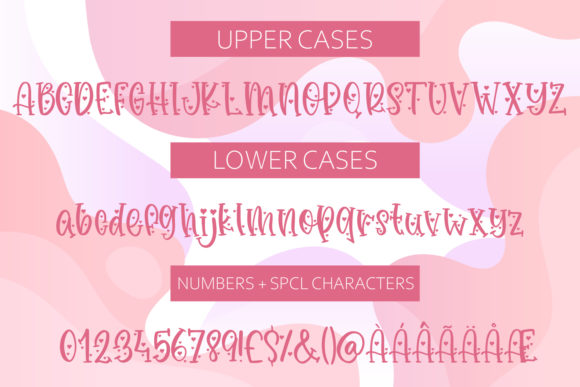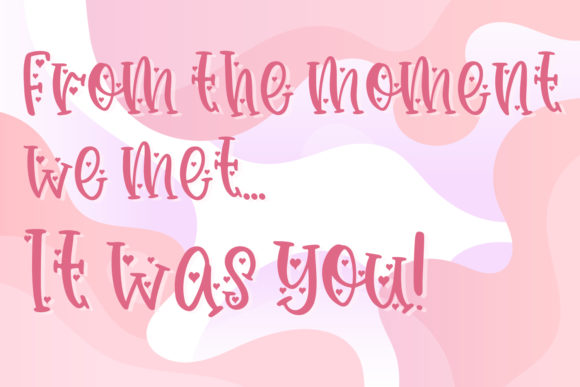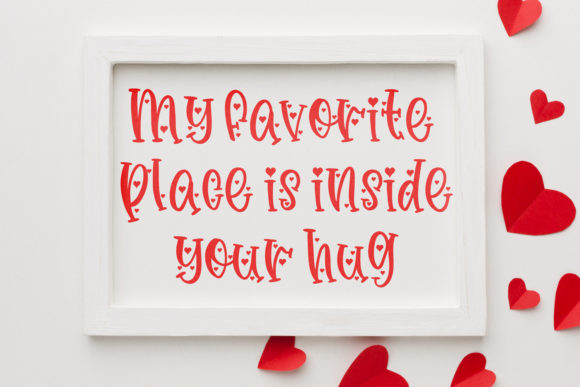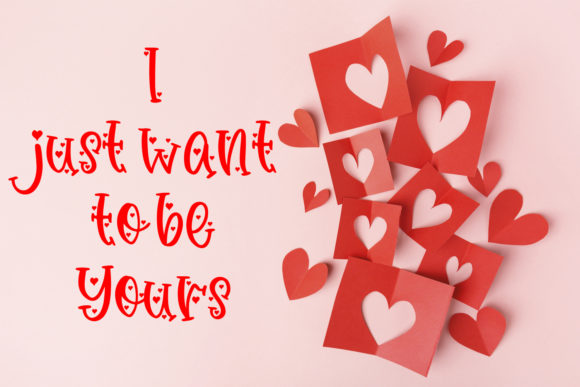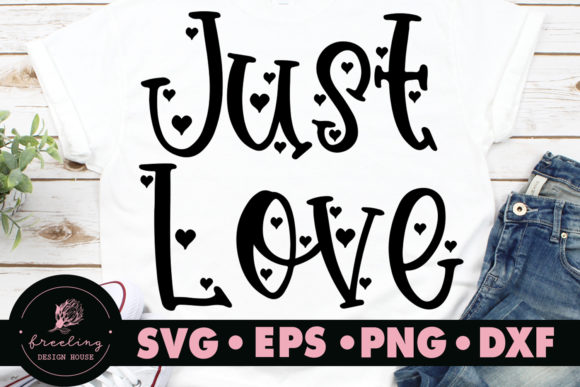
Introduction to Schnookums Font
Have you ever been working on a creative project and suddenly, the perfect font pops into your mind, elevating the entire design to a new level? For me, that moment happened when I stumbled upon the Schnookums Font. Its playful and whimsical charm instantly captured my heart, and I knew I had to share it with fellow designers.
Whether you’re a seasoned pro or a beginner, the Schnookums Font is a valuable addition to any design resource. With its high-quality design and transparent background, it’s perfect for adding a touch of personality to your work. And the best part? It’s available for free download, making it an accessible and exciting option for any creative project.
Key Features of Schnookums Font
- High-quality, professional font ideal for creative projects requiring a unique touch.
- Unique, hand-drawn design elements and characters, setting it apart from standard fonts and adding a creative twist to any project.
Honest Review: Schnookums Font
I recently had the chance to work with the Schnookums Font for a creative project and I must say it’s been a delightful experience. The high quality of this font has truly elevated my design to the next level. ✨
- The font’s unique, playful style is perfect for projects that require a touch of whimsy.
- The transparent background option allows for seamless integration with other design elements.
However, I did encounter a few limitations during my usage. ⚠️
- The font’s weight is quite light, which may not be suitable for all design applications.
- The character set is not as extensive as some other fonts, which may limit its use in certain situations.
Overall, I’m quite impressed with the Schnookums Font and would definitely recommend it for creative projects where a high-quality, playful font is needed. While it may have some limitations, its unique style and free download option make it a great design resource to have in your toolkit.
Tips for Getting the Most Out of Schnookums Font
Use the Schnookums Font in combination with other design resources to create a unique look. Experiment with different font sizes, colors, and backgrounds to get the most out of this font.
Common Use Cases for Schnookums Font
The Schnookums Font is perfect for creative projects such as logo designs, social media graphics, and print materials. Its unique style and high-quality design make it a great addition to any project.